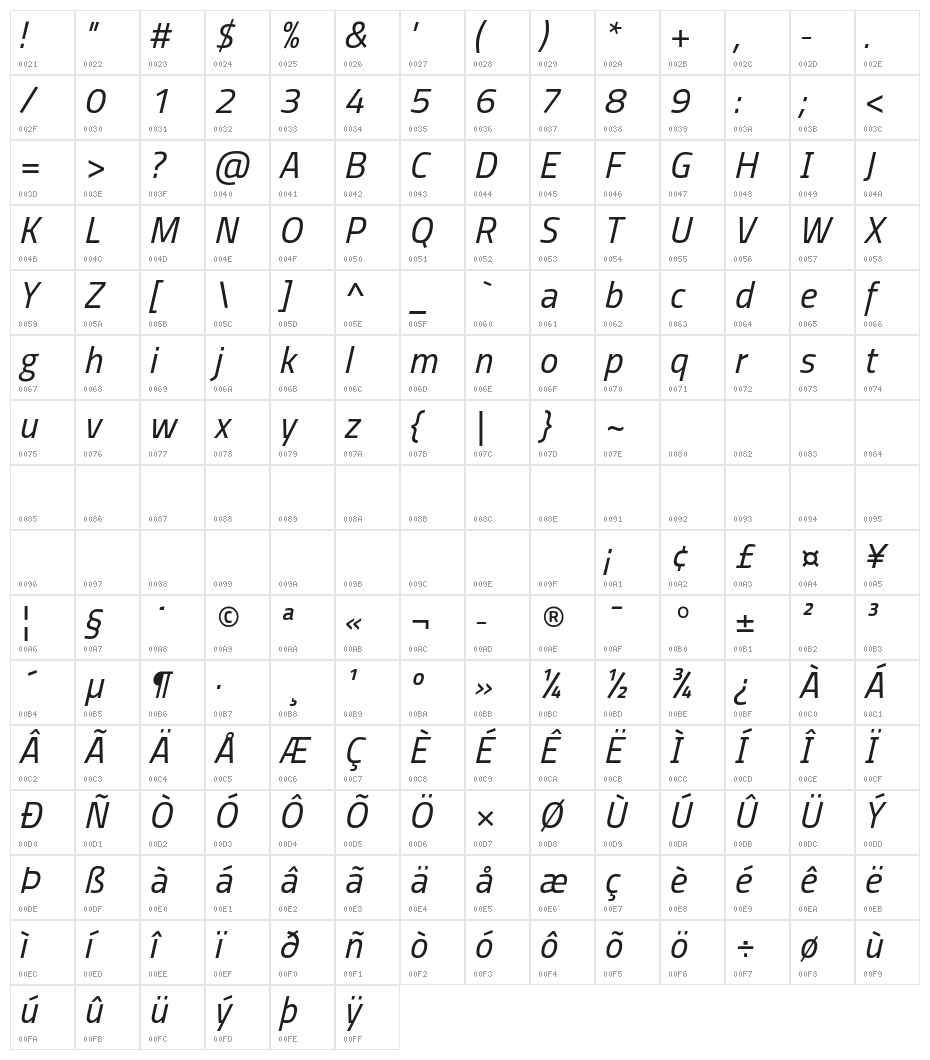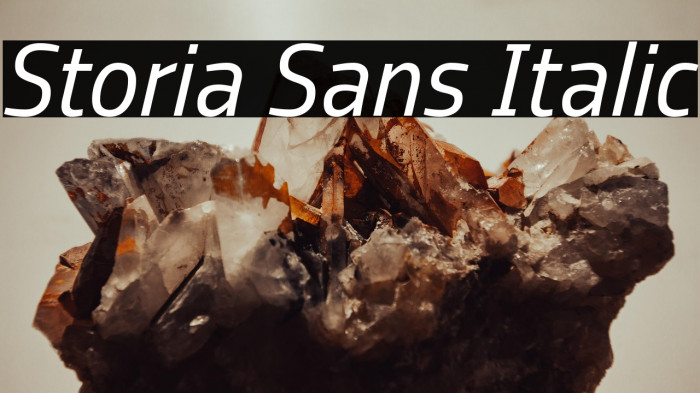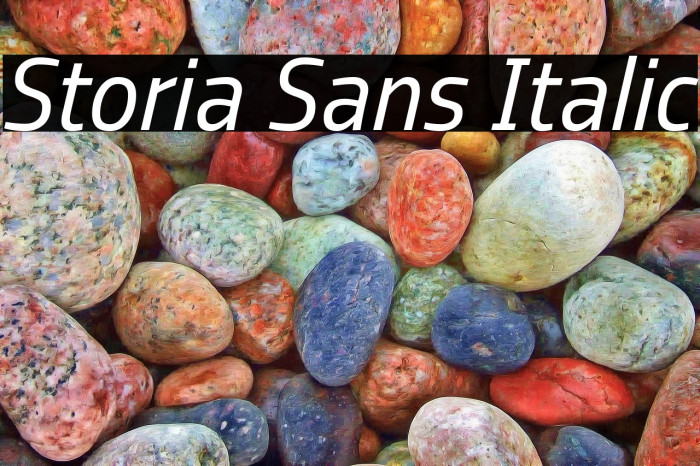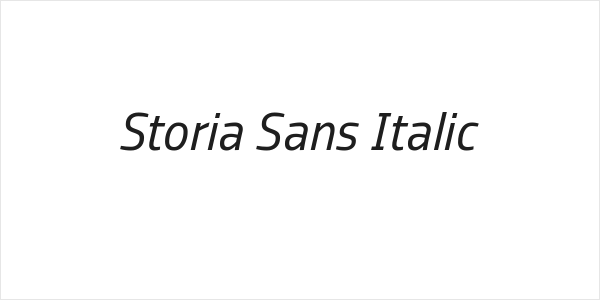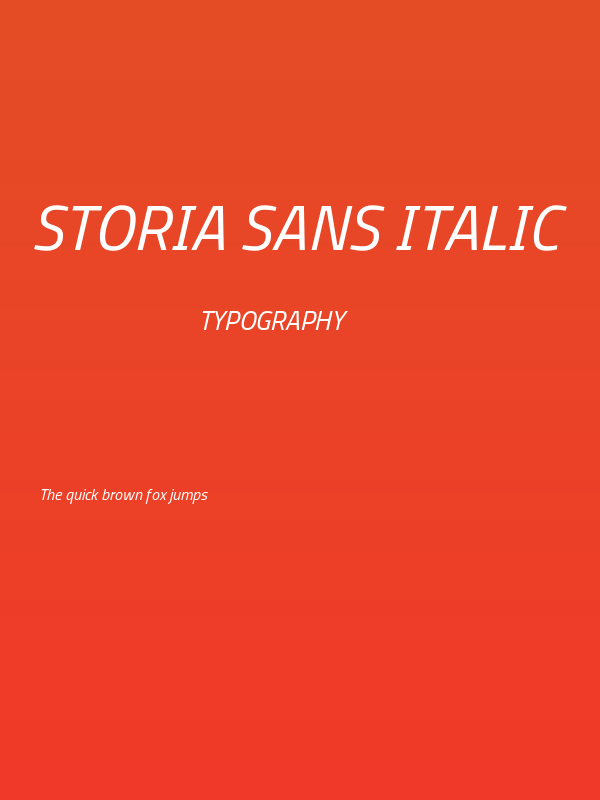
Storia Sans Italic Font
Storia Sans Italic Description
This font features a clean and modern sans-serif design with a noticeable italic slant, giving it a dynamic and forward-moving appearance. The characters are well-proportioned, with a consistent stroke width that maintains readability across various sizes. The uppercase letters are bold and commanding, while the lowercase letters are smooth and approachable. Numerals are clear and distinct, making them suitable for both display and text purposes. The special characters are well-integrated, maintaining the overall aesthetic of the font. Its sleek and streamlined look makes it versatile for a range of applications.